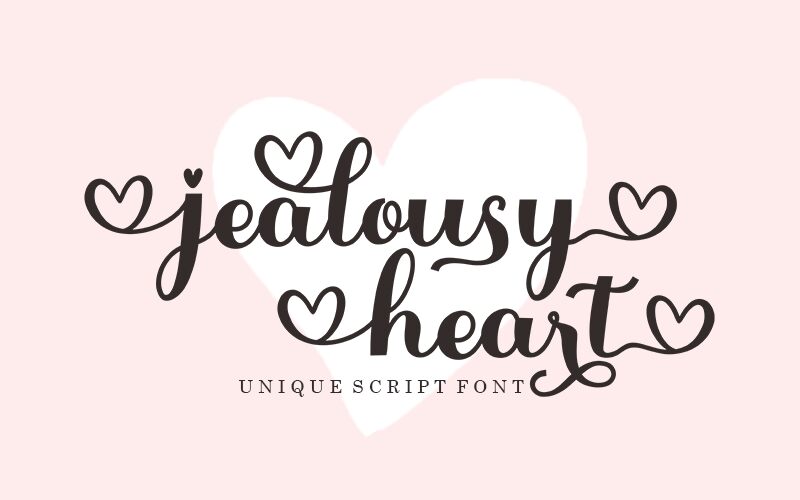
Introducing Jealousy Heart, a captivating calligraphy font designed by Mu Fazzal. With its graceful strokes and intricate details, this font exudes elegance and sophistication.
Perfect for wedding invitations, luxury branding, and romantic-themed projects, Jealousy Heart adds a touch of romance and charm to any design. Its flowing script captures the essence of love and passion, making it an ideal choice for greeting cards, love letters, and personalized gifts.
Enhance your designs with the beauty of Jealousy Heart's handcrafted calligraphy and let it inspire emotion in every stroke.
Features : Lowercase Beginning & Ending Swashes & Ligatures.